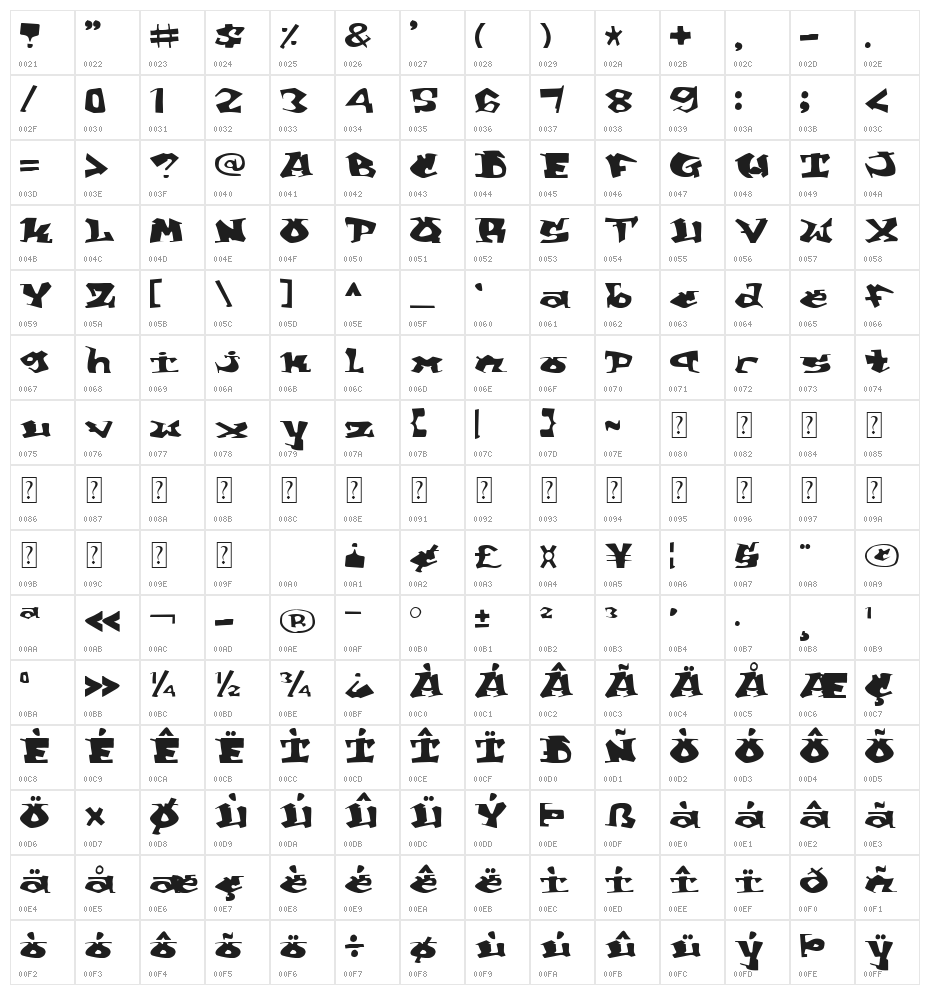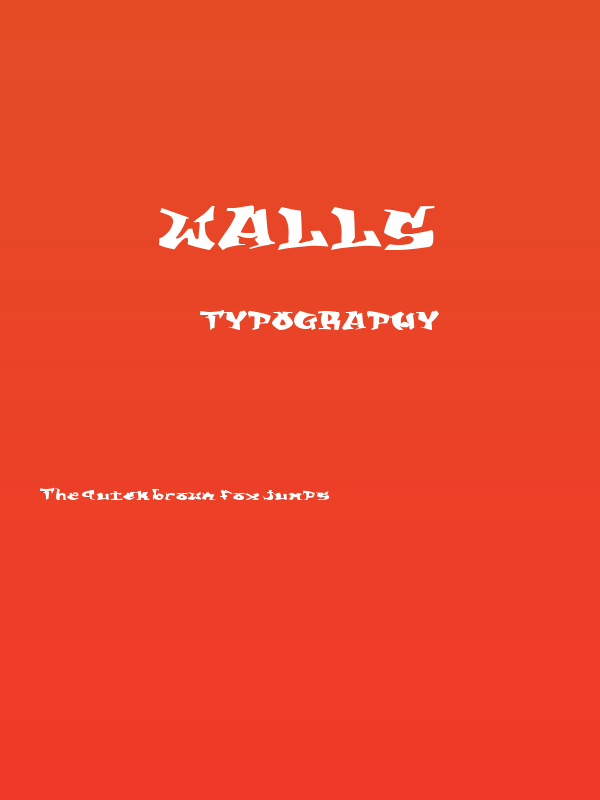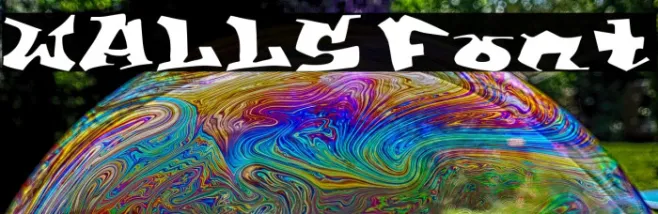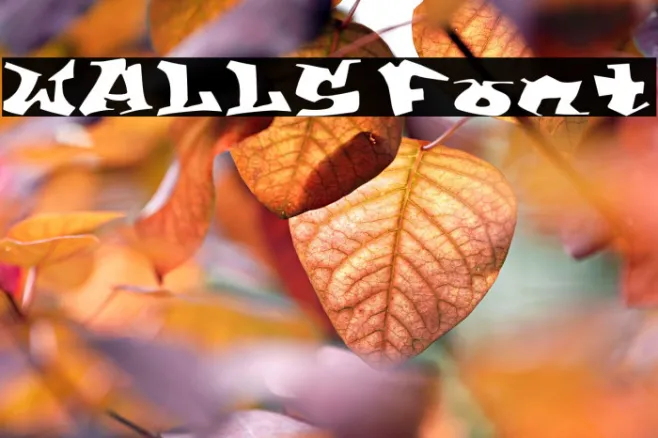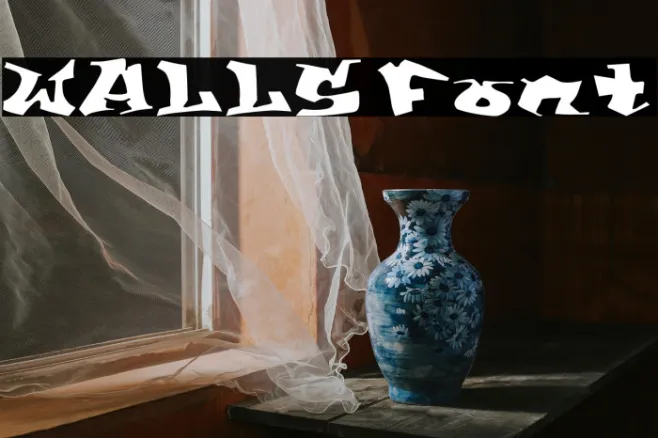
WALLS Font
WALLS Description
This font features a bold and dynamic style with a graffiti-inspired aesthetic. The characters are irregular and angular, giving them a sense of movement and energy. The uppercase and lowercase letters maintain a consistent style, with exaggerated strokes and sharp edges. Numbers and special characters follow the same bold and expressive design, making the font suitable for eye-catching displays. The overall appearance is edgy and modern, perfect for projects that require a strong visual impact.
| Proposed Projects | Ideal for street art designs, urban-themed posters, music album covers, and edgy branding projects. |